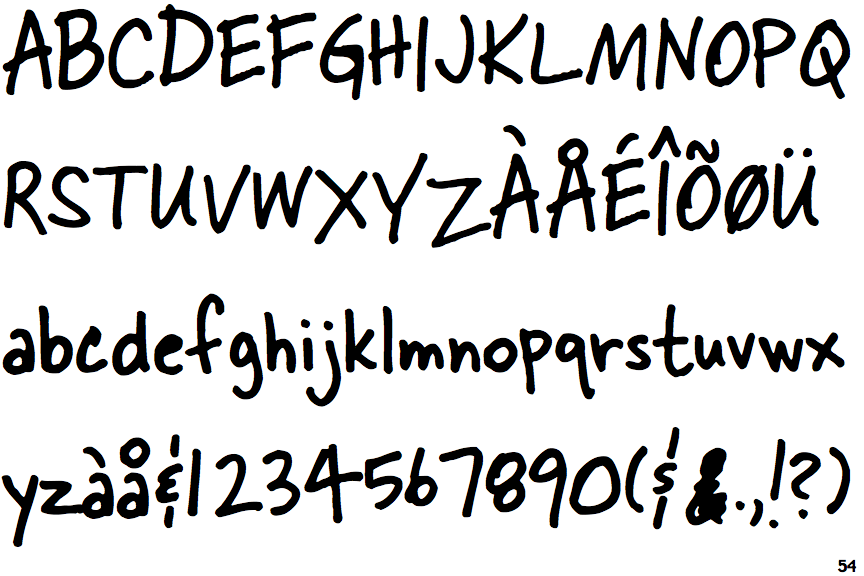
Skippy Sharp Font. A handmade typeface with 1 style, available from adobe fonts. Web explore skippy sharp designed by chank diesel at adobe fonts.
A handmade typeface with 1 style, available from adobe fonts. Web explore skippy sharp designed by chank diesel at adobe fonts.
A handmade typeface with 1 style, available from adobe fonts. A handmade typeface with 1 style, available from adobe fonts. Web explore skippy sharp designed by chank diesel at adobe fonts.